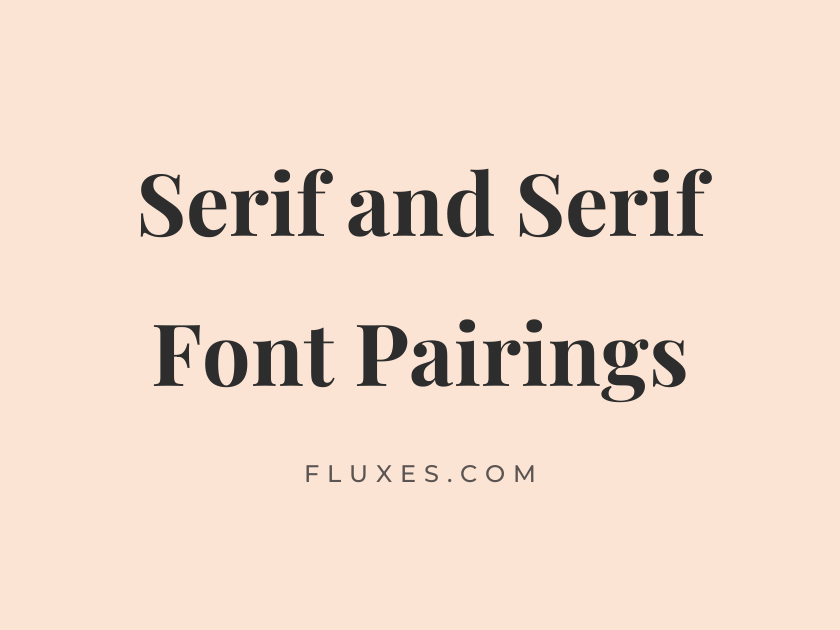
10 Best Serif and Serif Font Pairings
Pairing two serifs takes a steadier hand than mixing a serif with a sans, since the goal is contrast without collision. The trick is to let one typeface carry personality at large sizes while the other stays composed and legible in paragraphs, so headlines and body copy read as a family rather than a mismatch. These Google Fonts pairings lean on differences in contrast, x-height, and era to keep that balance.
1. Playfair Display + Lora
Elegant Headlines, Refined Detail
Lora's calligraphic curves keep long paragraphs comfortable to read after a bold display line.
Playfair Display’s dramatic stroke contrast makes it a natural attention-getter, and Lora’s moderate contrast and rounded terminals give it just enough warmth to feel connected rather than borrowed from another era. This is a dependable font combination for editorial sites, wedding invitations, and boutique branding.
2. Abril Fatface + PT Serif
Bold Statements, Confident Voice
PT Serif was designed for screen reading, so it settles comfortably beneath a heavier display face.
Abril Fatface is unapologetically heavy, built for posters and magazine covers, so it needs a body serif with sturdy, low-key letterforms to avoid competing for attention. PT Serif’s practical proportions and generous spacing do exactly that, making this pairing well suited to feature articles and print-inspired web layouts.
3. Cormorant Garamond + Crimson Text
Classic Grace, Old-Style Charm
Crimson Text echoes the same old-style tradition, giving long-form reading a literary, book-like feel.
Both fonts descend from old-style book typography, so their proportions and stroke modulation already share a common ancestry. Cormorant Garamond’s slender elegance works best at larger display sizes, while Crimson Text was drawn specifically for comfortable reading, making this an ideal pairing for poetry sites, memoirs, and literary journals.
4. Libre Baskerville + Vollkorn
Timeless Words, Trusted Voice
Vollkorn's sturdy, book-like letterforms carry paragraphs of text with an unhurried, dependable rhythm.
Libre Baskerville was optimized for on-screen headlines, and Vollkorn was built for exactly this kind of supporting role, with wide apertures and a calm rhythm that never fights for the reader’s eye. Together they suit publishing platforms, law firms, and any brand that wants to read as established rather than trendy.
5. Prata + Noto Serif
Understated Luxury, Modern Serif
Noto Serif brings clean, neutral letterforms that let a distinctive headline font do the talking.
Prata has a refined, slightly high-fashion character that can overwhelm a page if paired with something equally decorative, so Noto Serif’s restrained, workmanlike design gives it room to breathe. This combination fits hospitality, beauty, and lifestyle brands aiming for a polished but approachable tone.
6. Rozha One + Source Serif 4
Distinctive Display, Editorial Edge
Source Serif 4 was engineered to complement display type while remaining effortless to read at length.
Rozha One carries unusual, high-contrast details that make headlines feel sculpted and specific, while Source Serif 4 was designed from the outset as a companion text face, so the pairing avoids the awkwardness that can come from combining two strong personalities. It works particularly well for design portfolios and cultural publications.
7. Spectral + Alegreya
Contemporary Serif, Screen Native
Alegreya's calligraphic rhythm and moderate size add texture without slowing the reader down.
Spectral was built specifically for digital reading environments, and Alegreya shares that same screen-first sensibility while adding a livelier, more humanist texture underneath. The result feels current rather than nostalgic, a good fit for blogs, newsletters, and content-heavy startups.
8. DM Serif Display + Bitter
Sharp Lines, Editorial Confidence
Bitter's slab serifs stay sturdy and grounded, balancing a more decorative display headline above.
DM Serif Display leans elegant and slightly theatrical, so grounding it with Bitter’s slab-serif structure keeps the overall composition from feeling too precious. This pairing suits fashion and culture sites that want flair at the top of the page and clarity everywhere else.
9. Yeseva One + Domine
Warm Character, Handmade Feel
Domine's even color and moderate x-height keep paragraphs steady beneath a more expressive headline.
Yeseva One has a friendly, almost hand-finished quality that works well for brands wanting warmth rather than formality, and Domine’s understated, well-spaced letterforms let that personality show without disrupting readability. Consider it for food blogs, small studios, and craft-oriented businesses.
Tips for combining two serifs
Contrast in weight or stroke modulation matters more than contrast in style; a heavy display serif almost always needs a lighter, evenly colored text serif beneath it.
Check x-heights side by side. If both fonts have similarly generous x-heights, the pairing will feel more unified even when their eras differ.
When in doubt, choose a body serif that was explicitly designed for text or screen reading, since those faces are built to stay out of the way of your headline font.